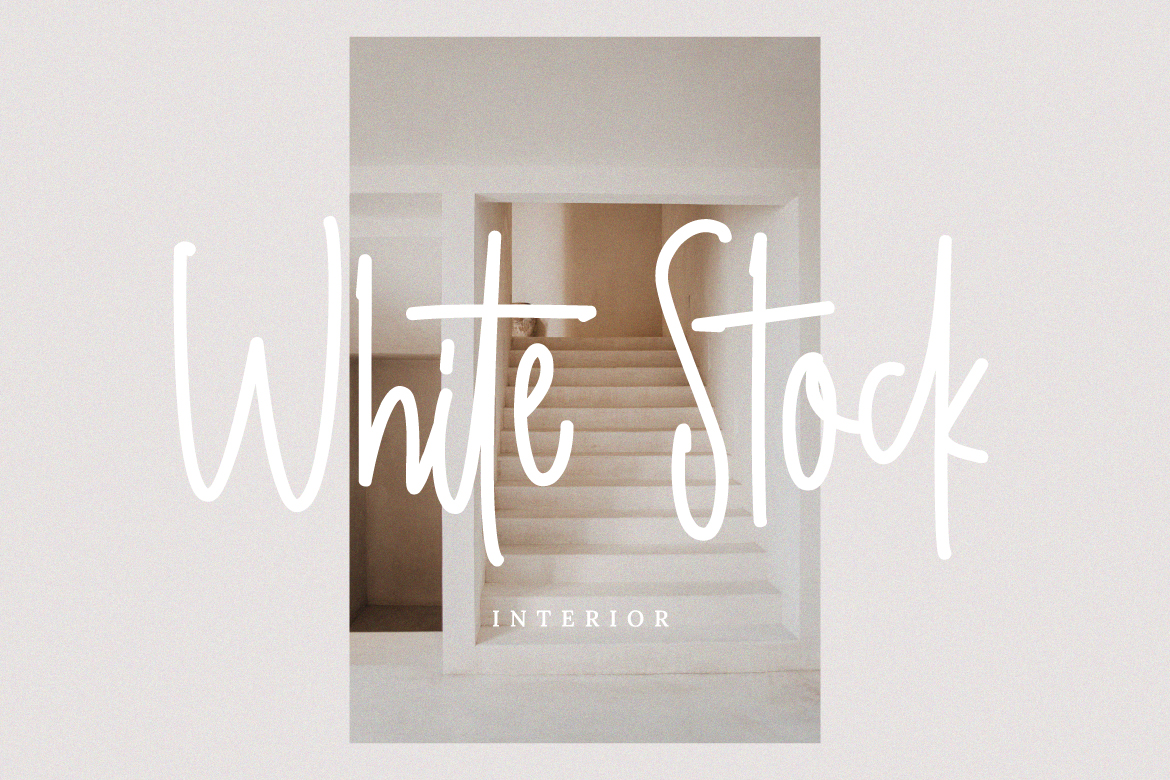
Nothing Matter – Stylish Handwritten Font
Simple but stylish handwritten monoline font. Equipped with ligatures and alternates characters make it more natural. Suitable for wedding invitation designs, quotes, logos and branding.